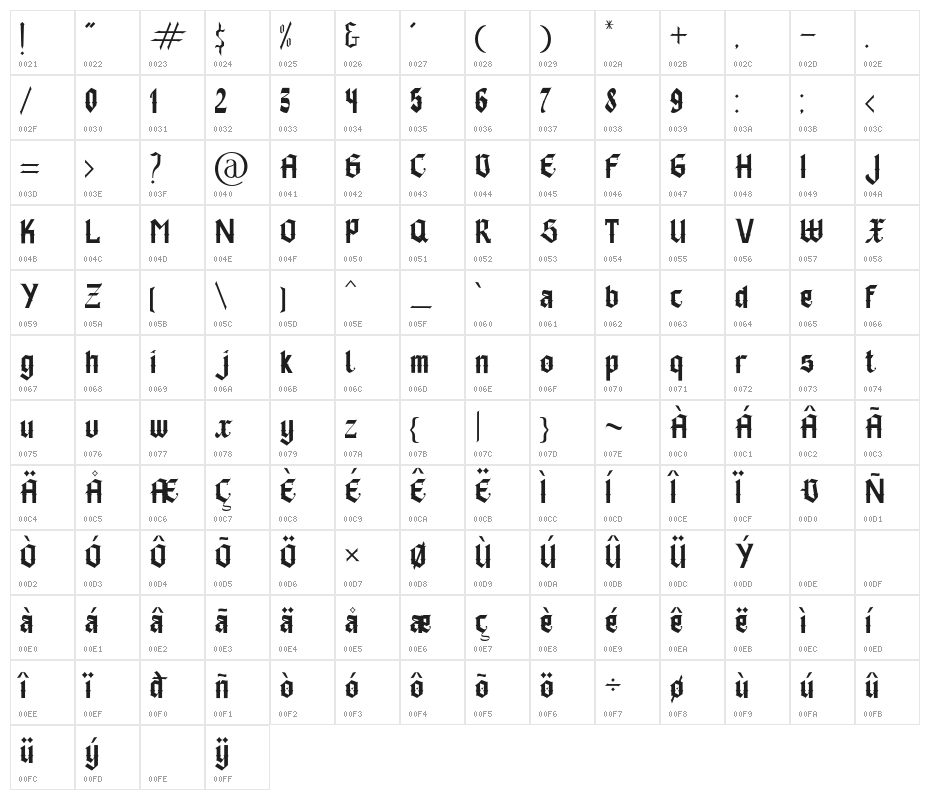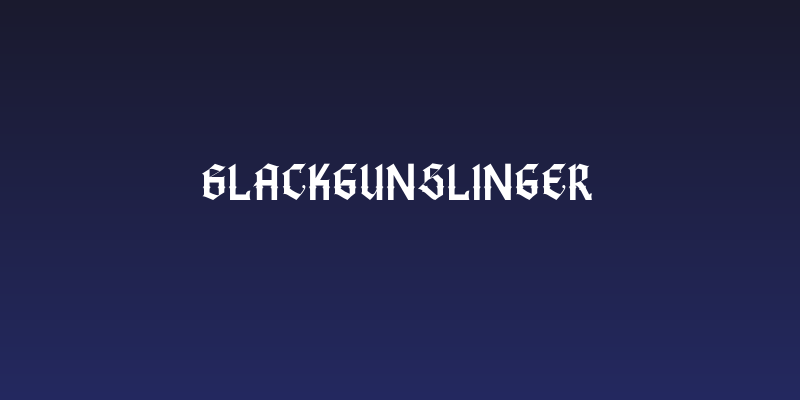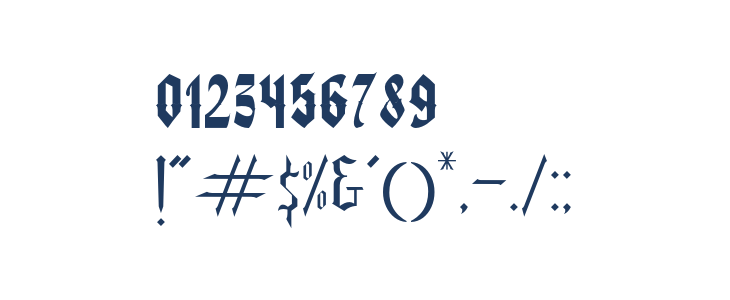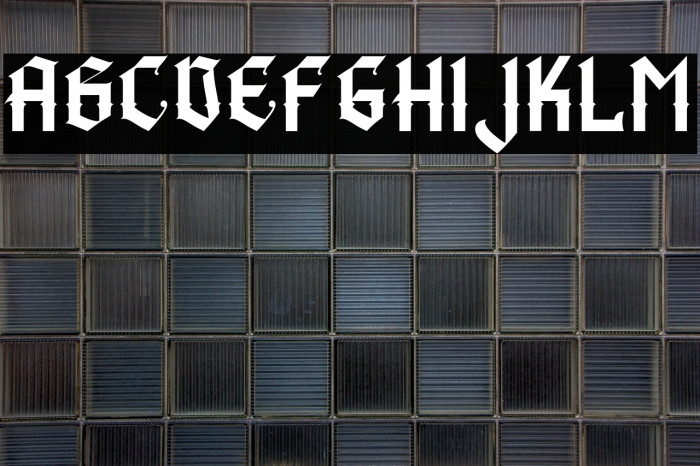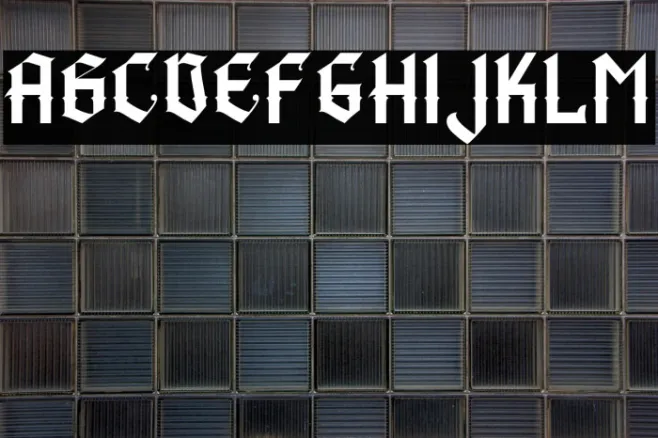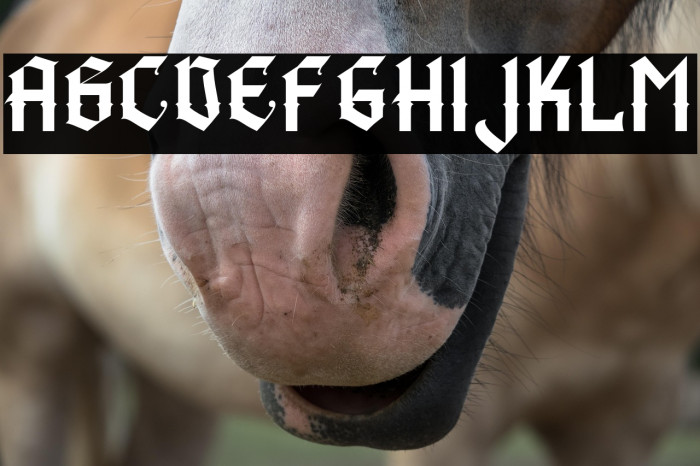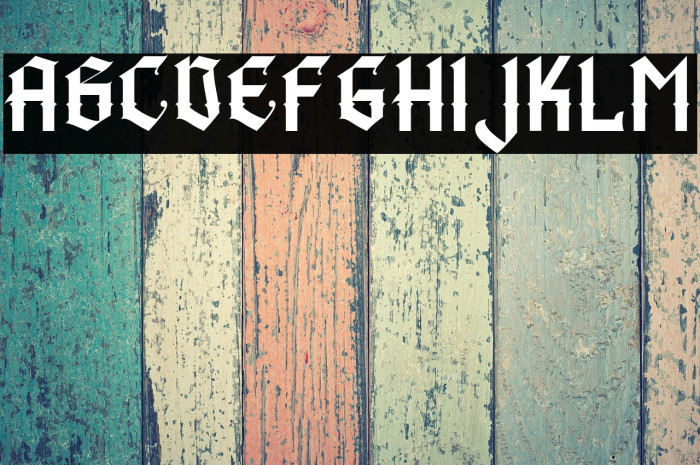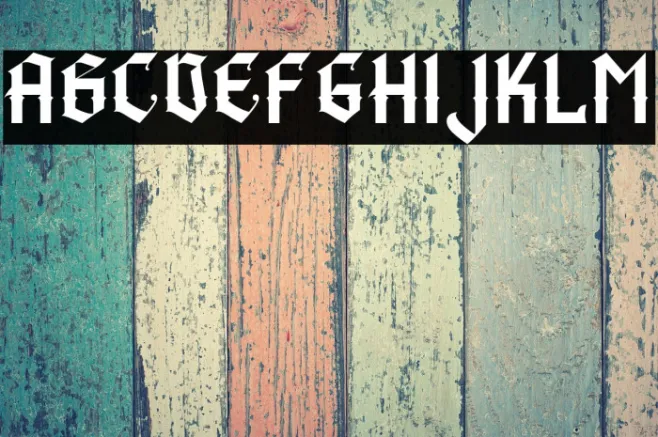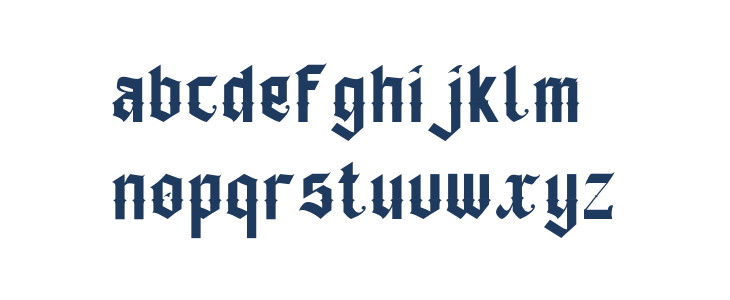
BlackGunslinger Font
BlackGunslinger Description
This font exhibits a bold and dramatic style, reminiscent of traditional blackletter typefaces. The characters are sharply angular with pronounced serifs and a gothic flair, creating a sense of historical gravitas. The uppercase letters are particularly striking, with intricate detailing that enhances their visual impact. The lowercase letters maintain the same stylistic elements, ensuring consistency across the typeface. Numbers and special characters are designed with the same attention to detail, making them suitable for a variety of applications where a strong, authoritative presence is desired.
| Overall Style | Gothic |
| Proposed Projects | Ideal for projects requiring a historical or gothic aesthetic, such as book covers, posters, or branding for themed events. |